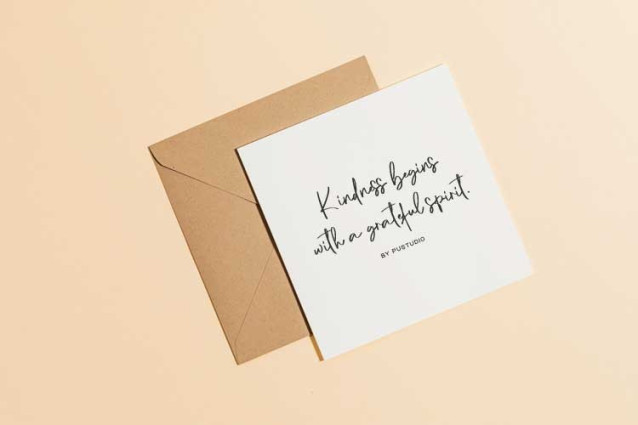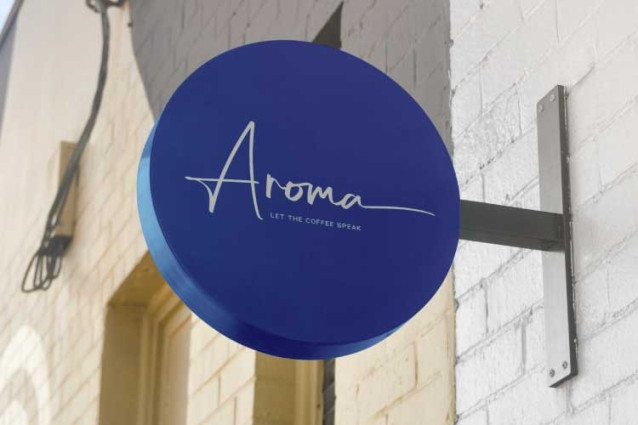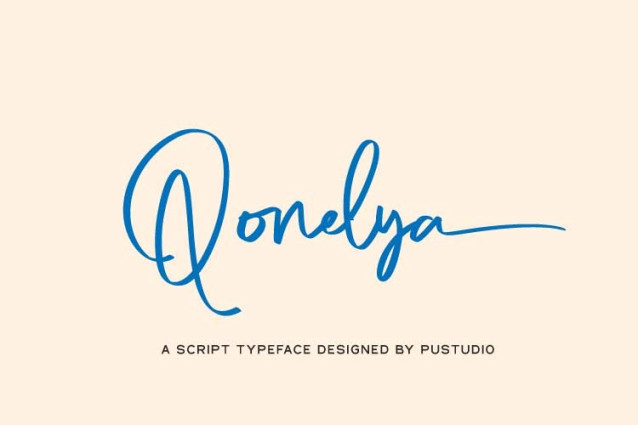
Qonelya Script Font
Qonelya Script Font is a beautiful script font featuring charming and elegant handwritten characters. Add this font to your most creative ideas, and see how it makes it stand out!